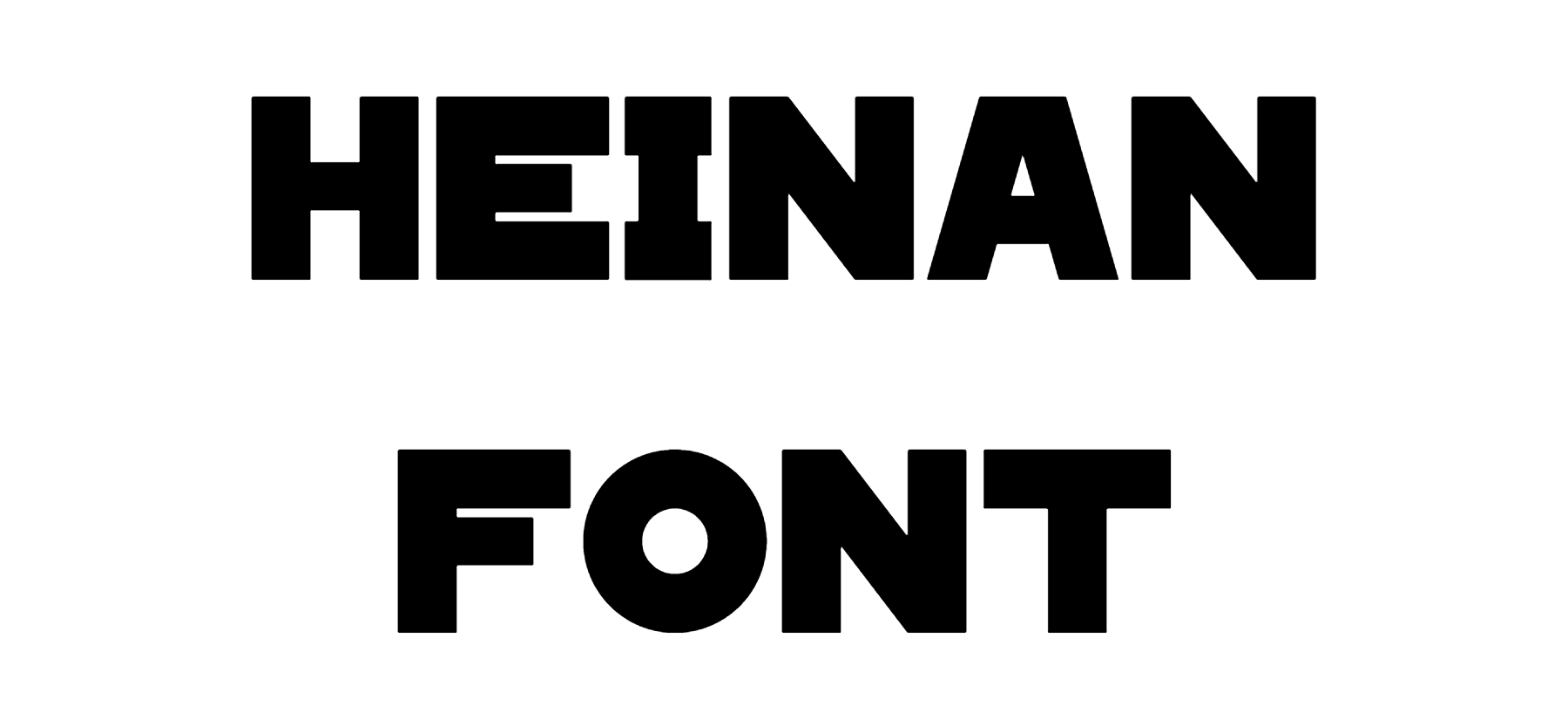
Heinan Font Preview
Heinan
Heinan is a sans serif font made by Maikohatta. It has a clean, no-nonsense look that fits modern brands and websites. You get two styles in one free ZIP, and the preview above lets you test each one before you download.
Heinan Font Details
- Designer: Maikohatta
- Font styles: 2 (Regular and Outline)
- Glyphs: 242 in the Regular style
- OpenType features: Ligatures (including optional ones)
- Extra characters: 5 copy-and-paste alternates (Private Use Area)
What You Can Type With Heinan
Heinan covers the full alphabet in upper and lowercase, plus all ten numbers, so you can set names, dates and prices without switching fonts. Everyday marks like &, !, ? and @ are there too. Thanks to its accented letters, it also works for Spanish, French, Portuguese and Italian, not just English.
How to Use the Alternate Letters in Heinan
Where Heinan Works Best
Designers usually reach for fonts like Heinan when they're making websites, app screens and clean logos. It works for headings and body text alike. If the download has several weights, use a heavier one for titles and a lighter one for paragraphs. Because the family has more than one style, you can mix them in a single design for headings, subheadings and highlights.